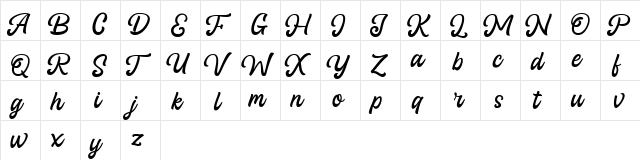
Motoride Demo Regular
| Foundry | Epiclinez |
| Designer | Aldy Sidik |
Design Context for Motoride Demo Typeface
Motoride Demo is a composed and adaptable typeface that performs quietly and consistently across a wide range of design contexts.